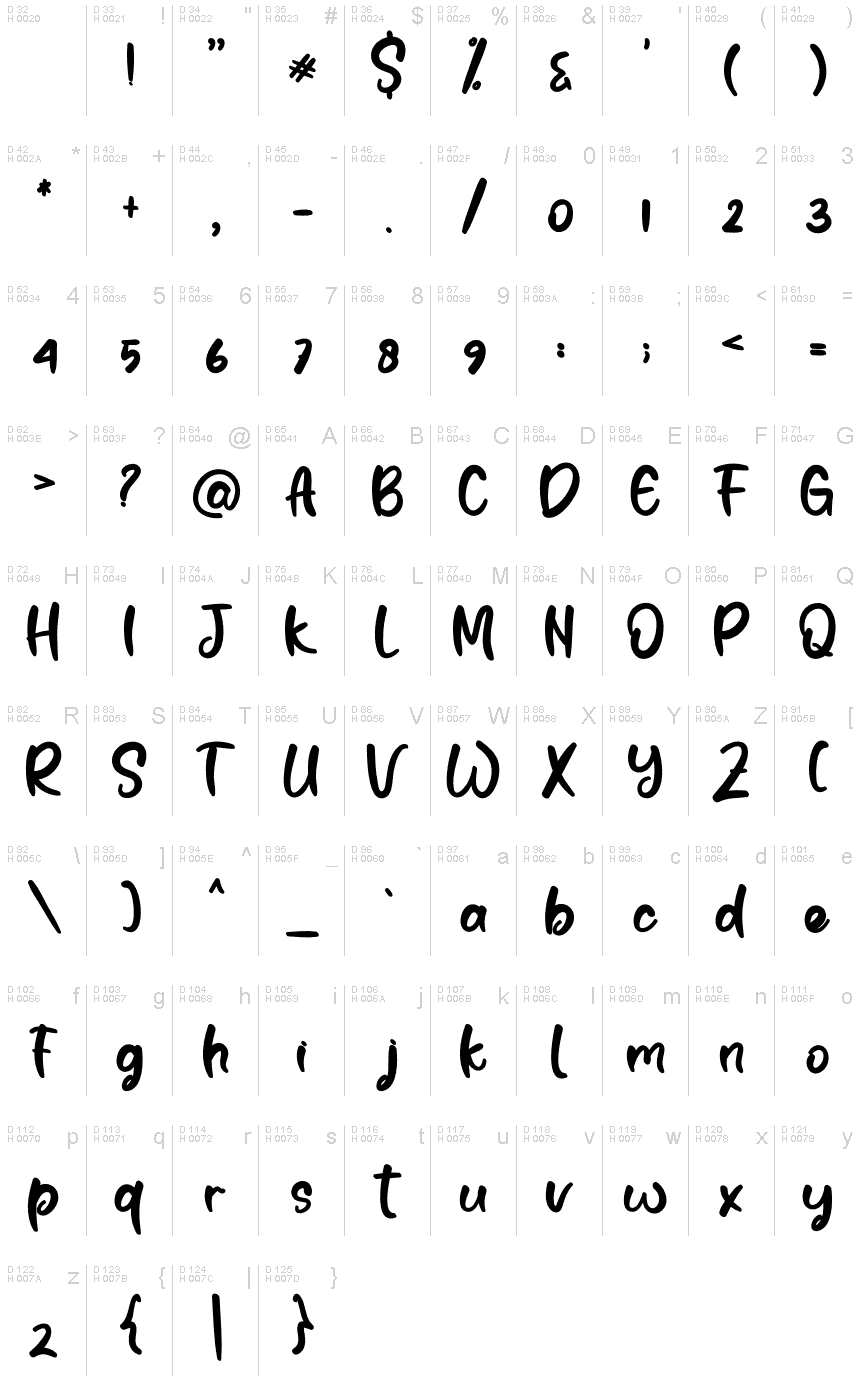
Black Colour
Discover the charm of Black Colour, a semi-bold creation by the talented Etik Fatimah that redefines elegance with its smooth brush strokes and handwritten finesse. This font is not just a typeface but a palette where creativity meets fluidity, perfect for giving your projects a personal touch.
Whether you're penning heartfelt invitations, branding artisanal food products, or crafting captivating titles, Black Colour infuses each word with warmth and character. Its versatility transcends conventional boundaries, making it an ideal choice for designers looking to leave a lasting impression in both print and digital realms.
Embrace the exquisite craftsmanship of Black Colour and elevate your design narrative with its distinct charm and sophistication.